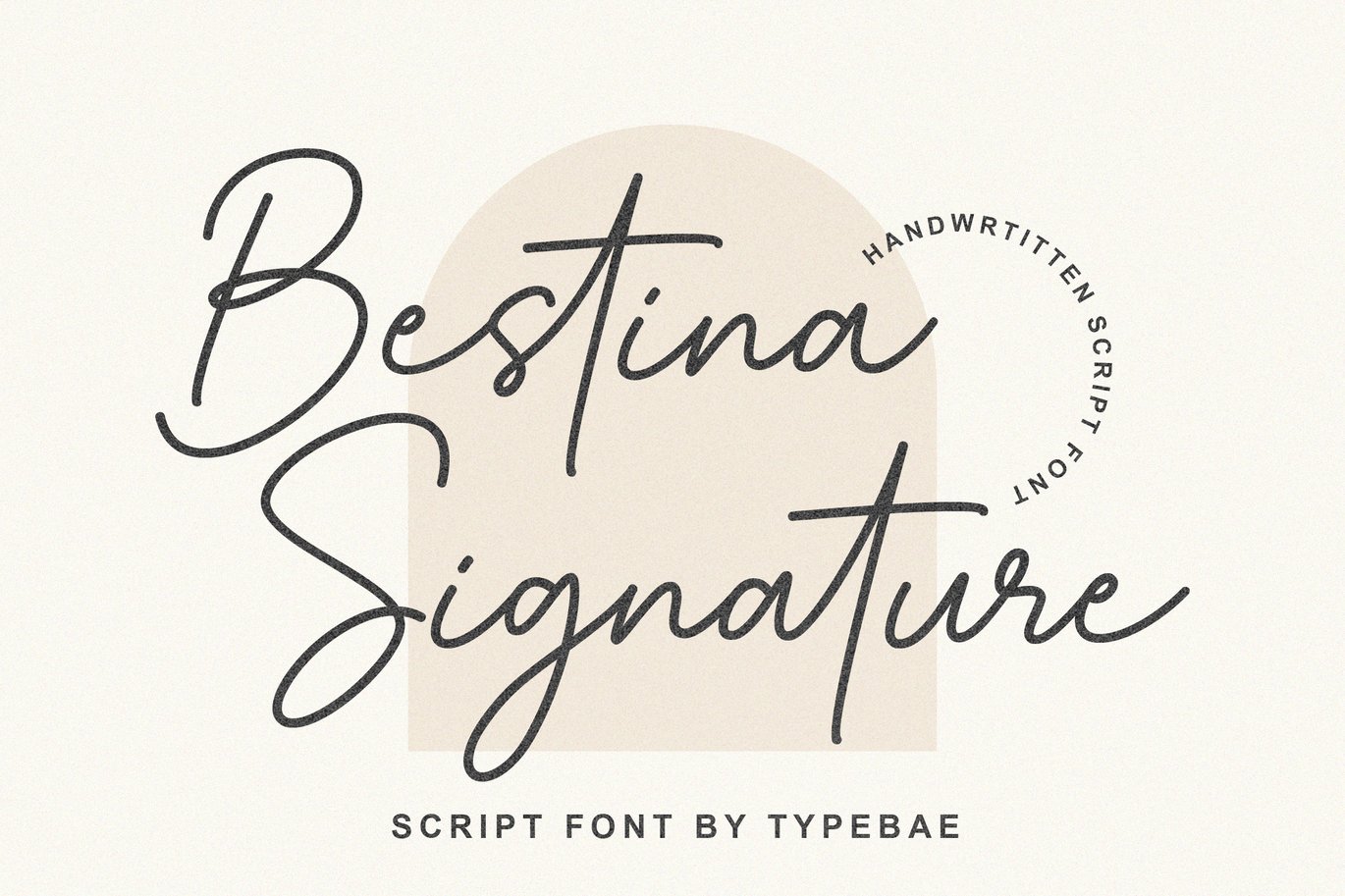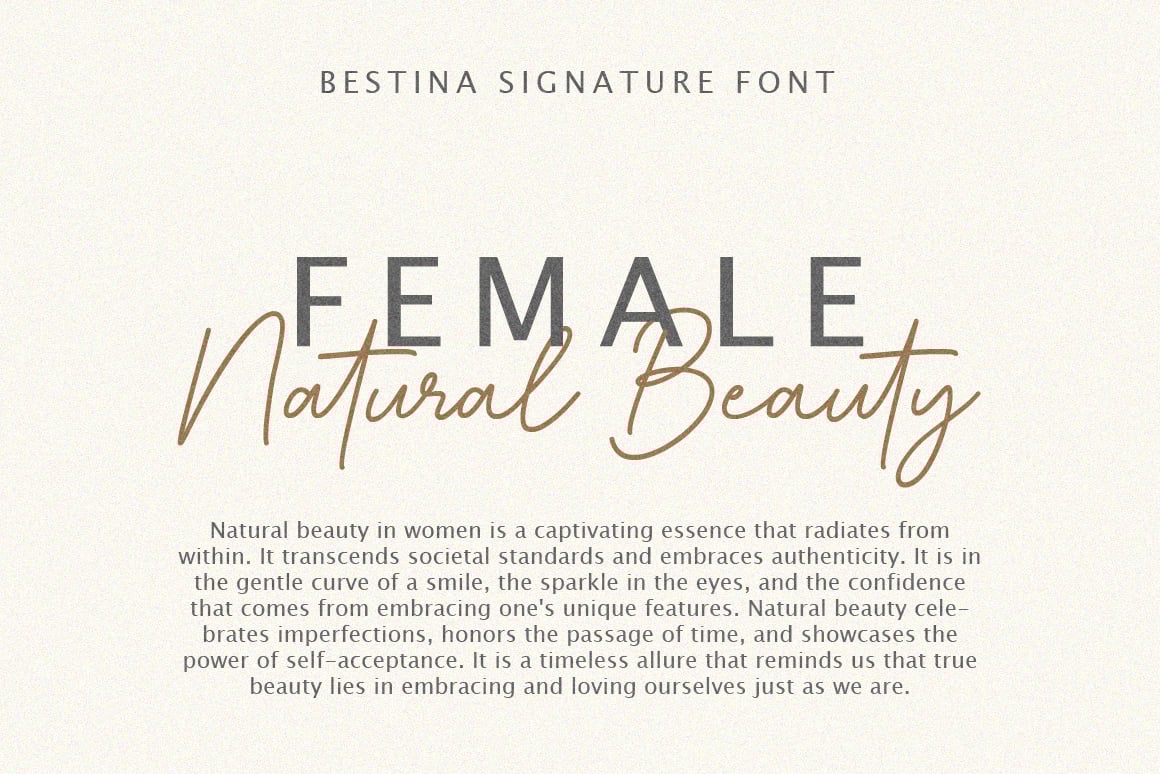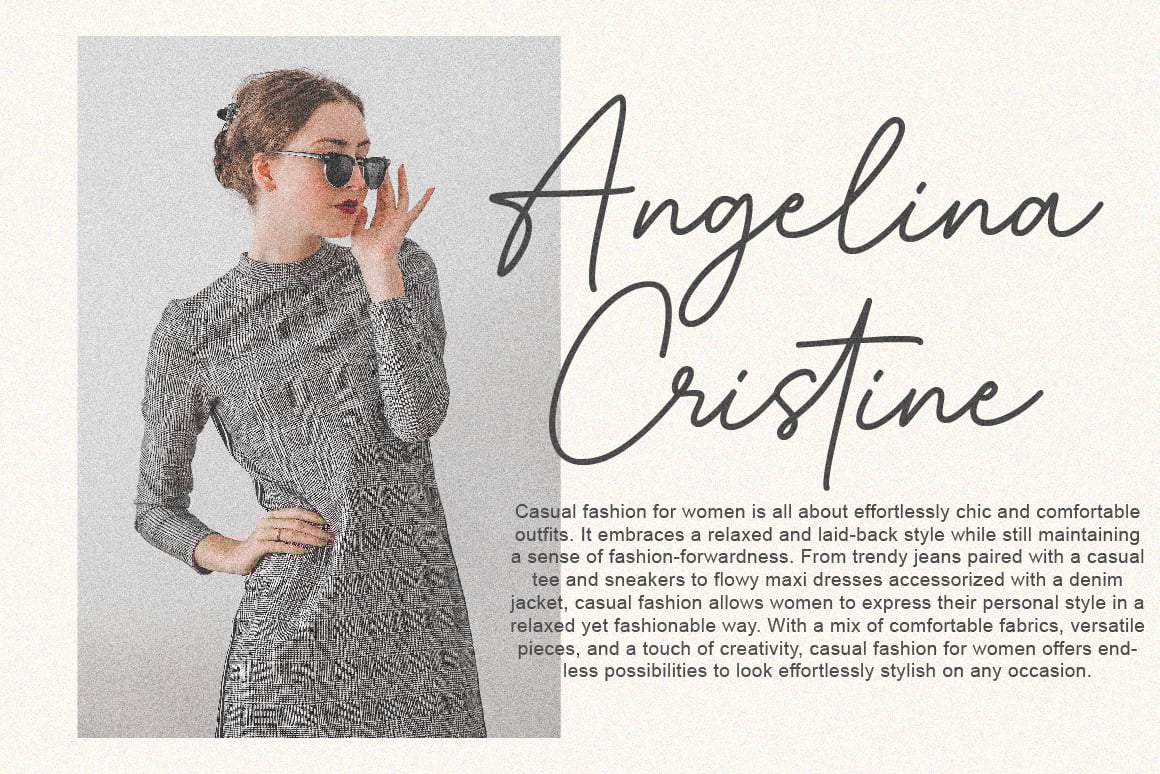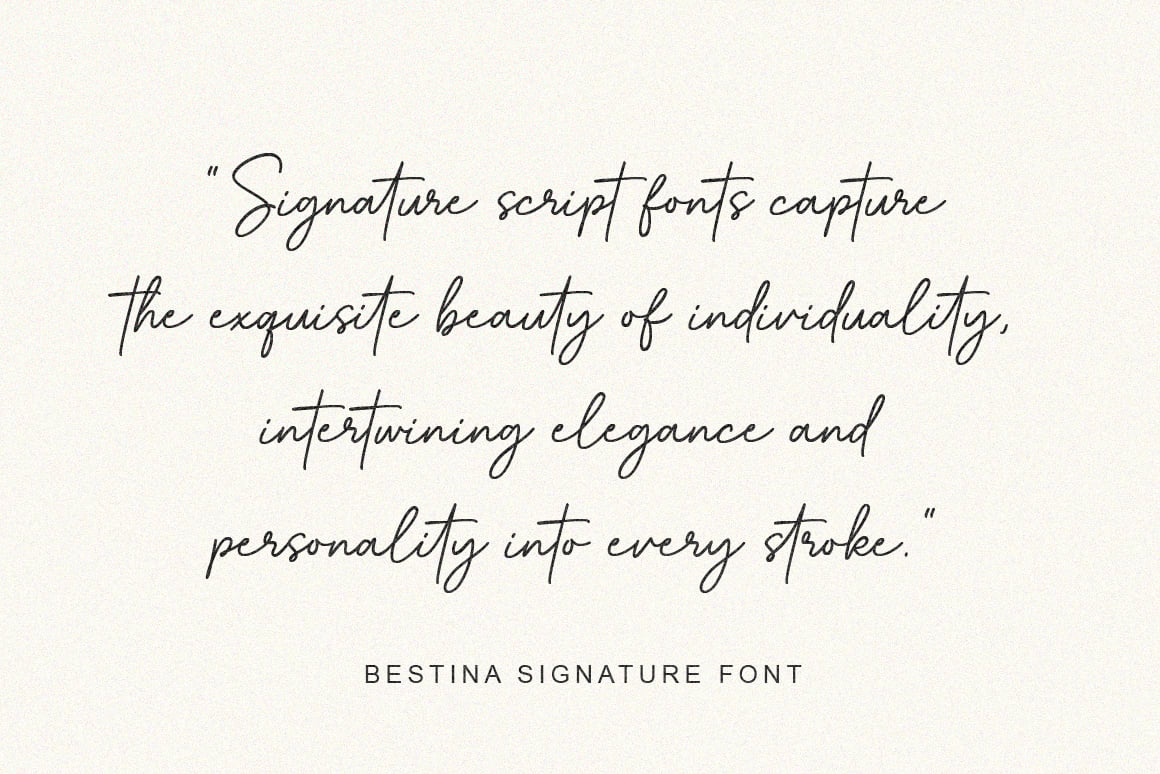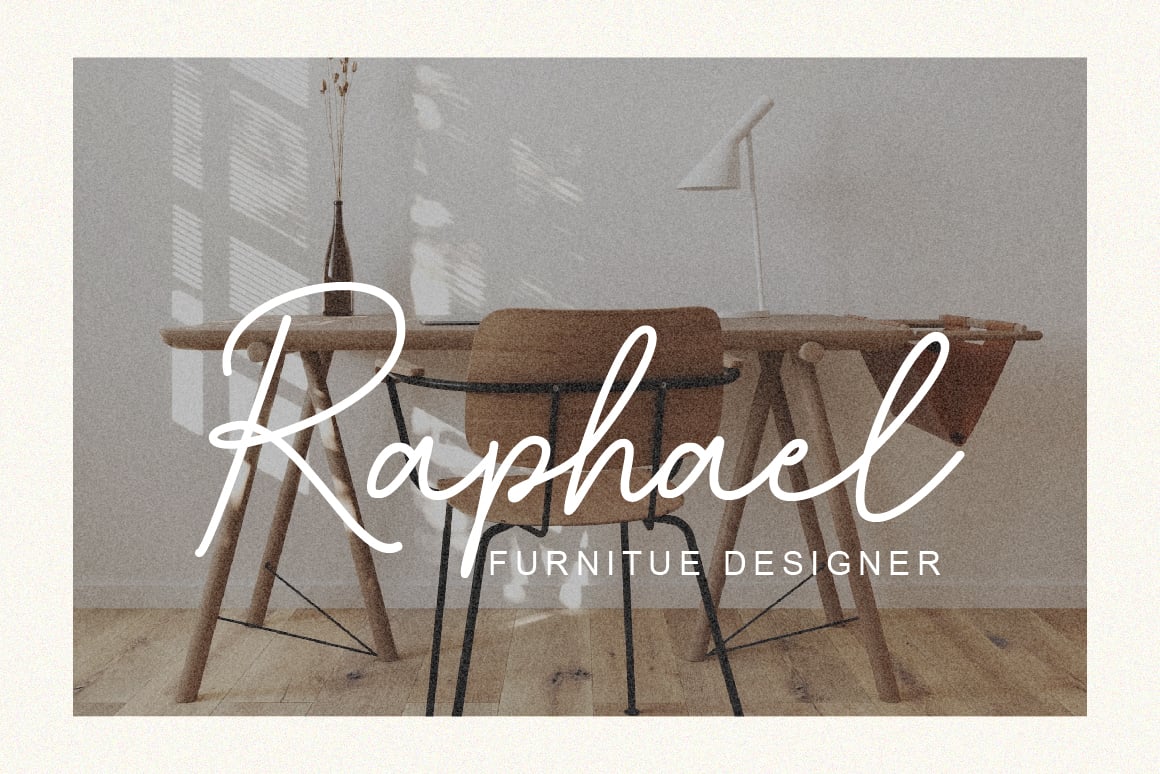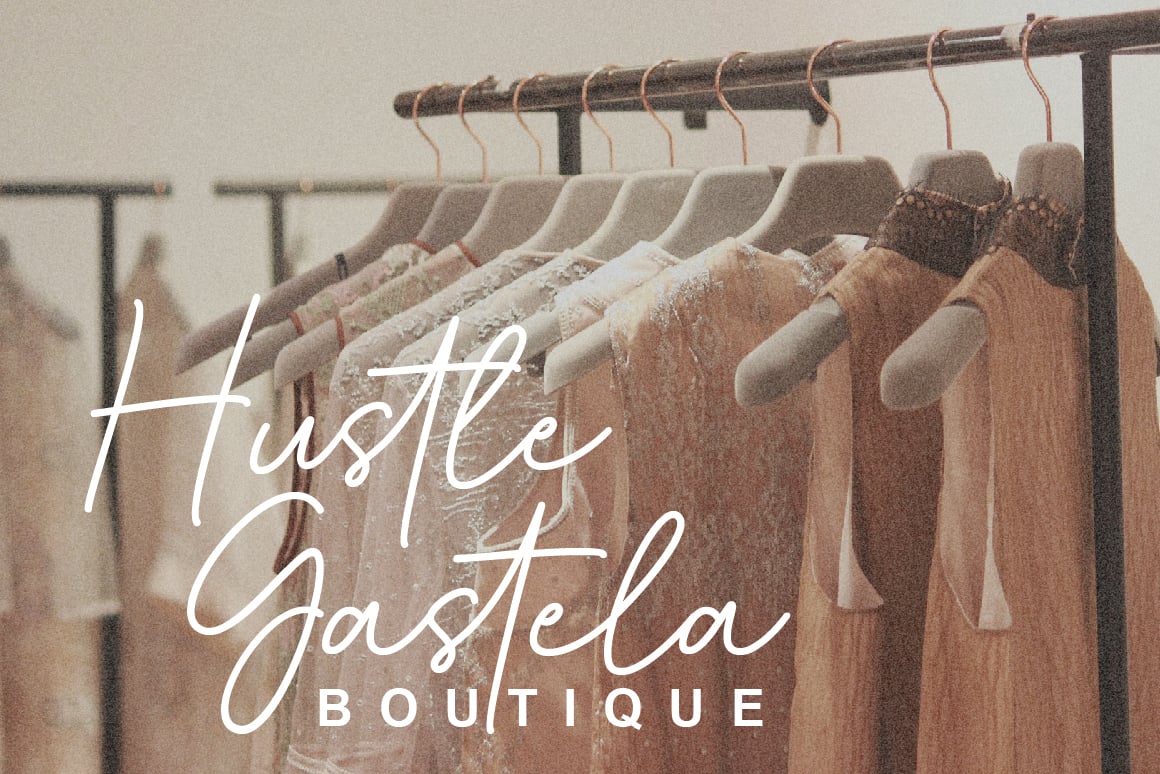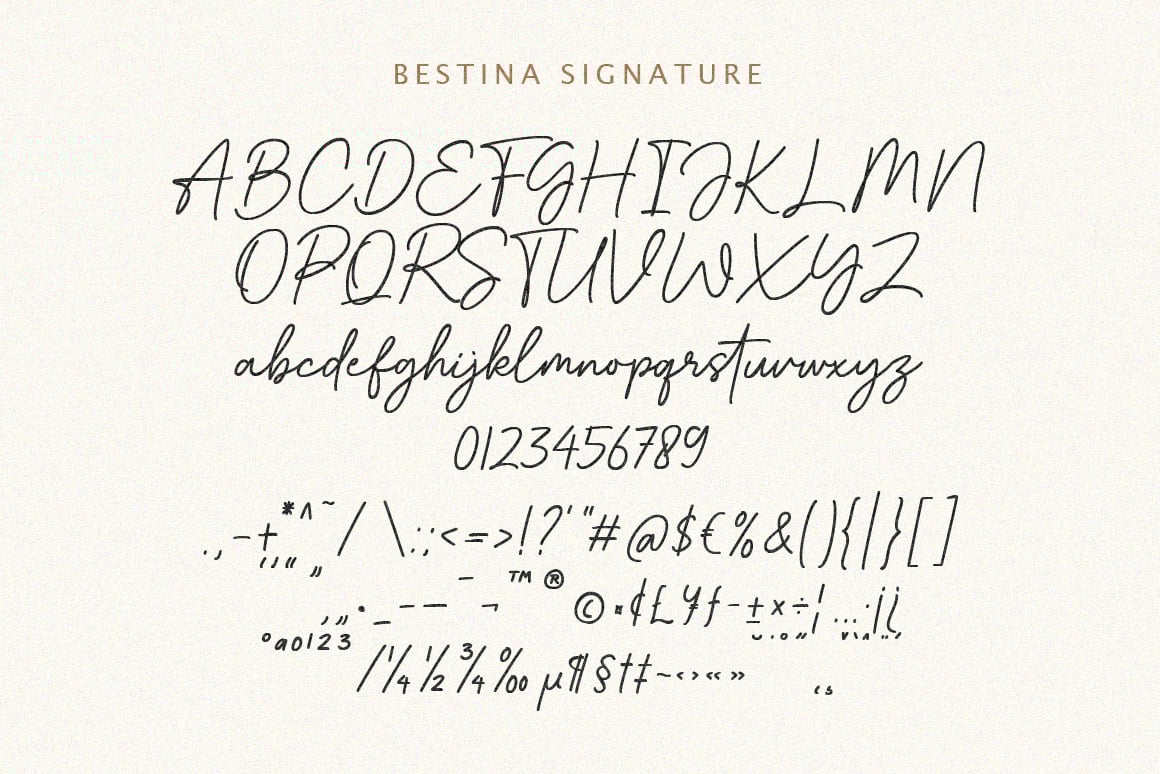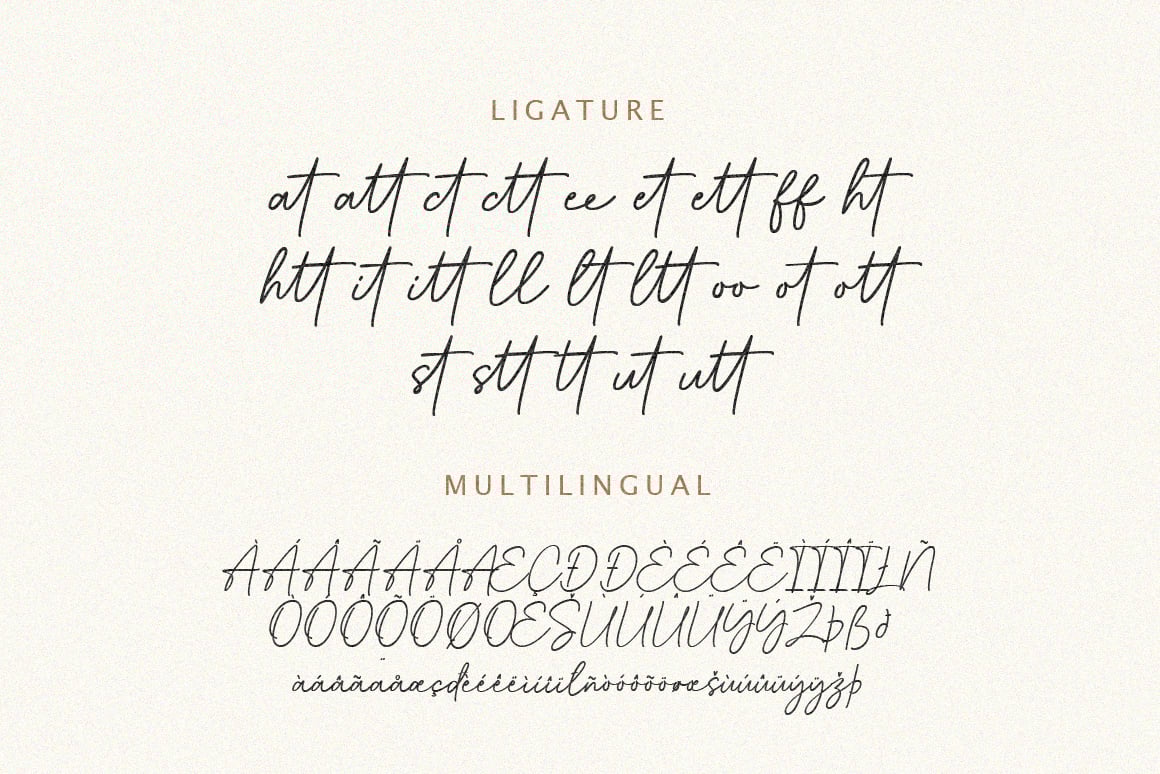
Bestina Signature Script Font
Bestina Signature Font is a delicated signature-style script handwriting font. With delicate and graceful lines, this font adds a personal and sophisticated touch to your designs. Use Bestina Signature Font to add an exclusive and elegant touch to logos, invitations, marketing materials, and various other design projects that require a special handwritten style.
*Standard alphabet and punctuation
*Ligature Feature
*Multilingual Support: Afrikaans, Basque, Breton, Catalan, Danish, Dutch, English, Finnish, French, Gaelic (Irish, Scots), German, Icelandic, Indonesian, Irish, Italian, Norwegian, Portuguese, Saami (Southern), Spanish, Swahili, Swedish.